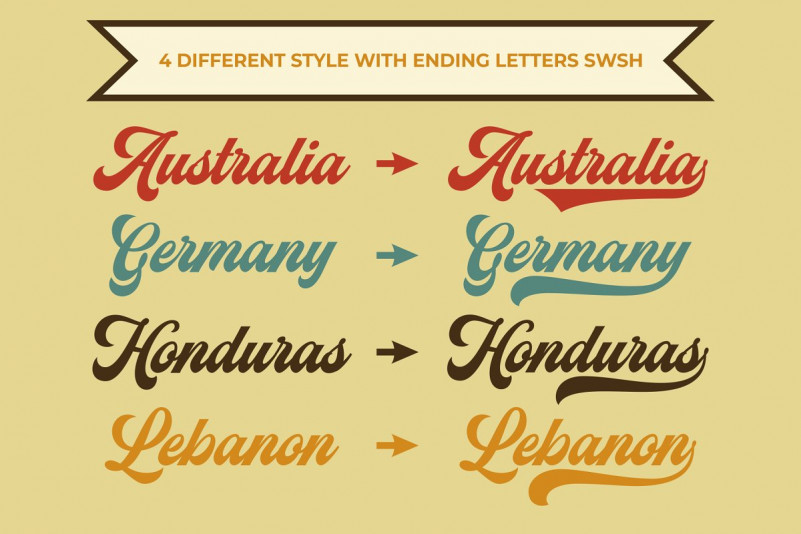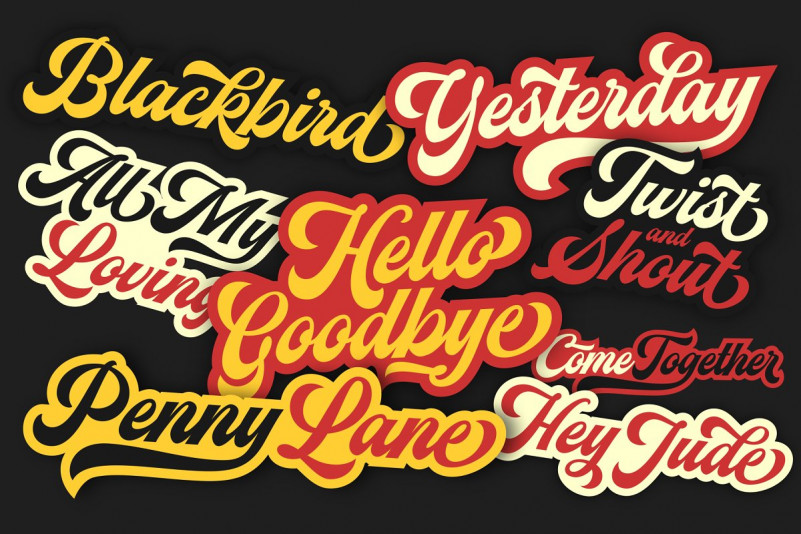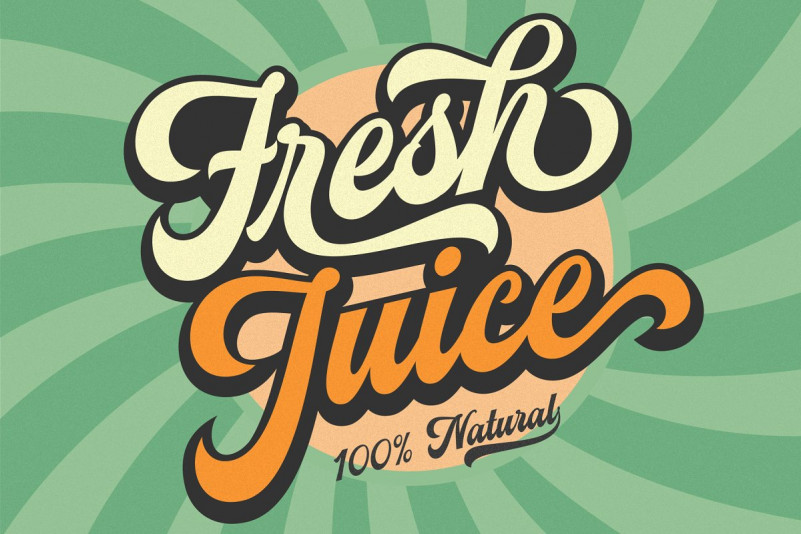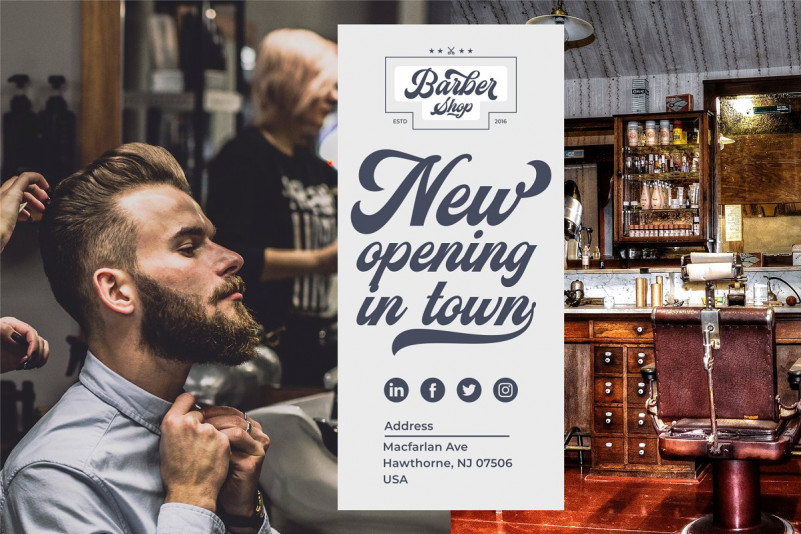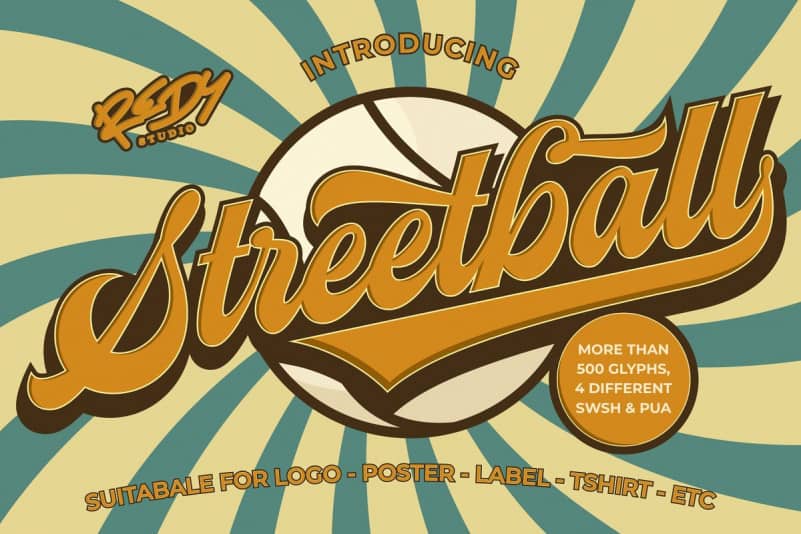
Streetball Vintage Font
Streetball Vintage – Demo Font
This is a monoline vintage script typeface which is created based on manual hand lettering with many features. Introducing Streetball Font. It’s inspired by baseball sports comes from the modern and vintage touch in it. This handmade font is made with several precision layers with a total of 511 glyphs. Streetball is very suitable for use in various media such as; packaging, logo, label, poster, shirt design, quote of wisdom, handlettering, typography and many other media.